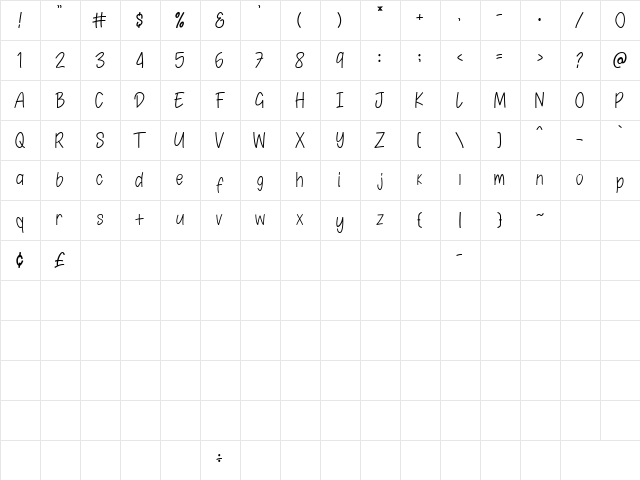
Purchuse Regular
| Designer | Adhi Setya |
Design Context for Purchuse Typeface
Purchuse is a composed and adaptable typeface that performs quietly and consistently across a wide range of design contexts.